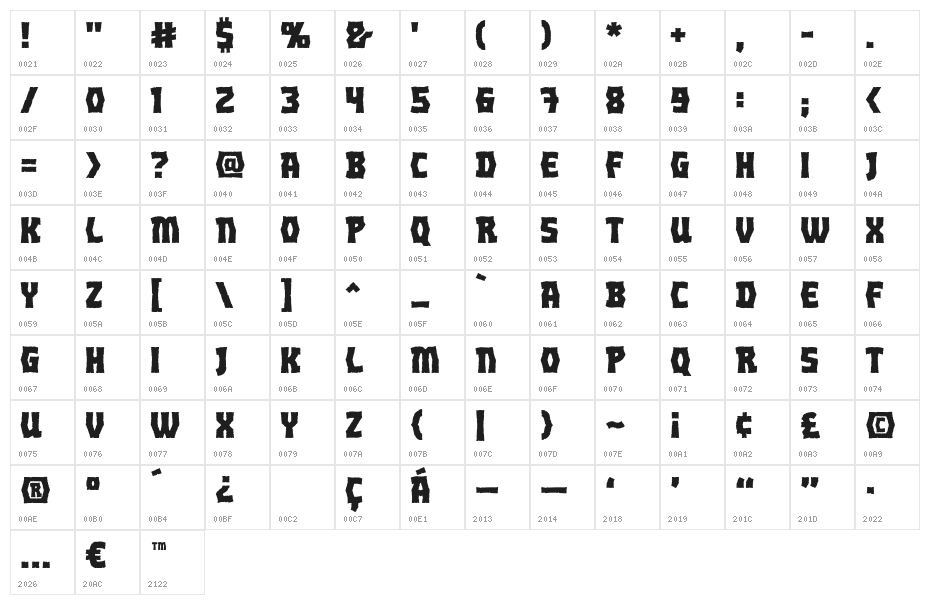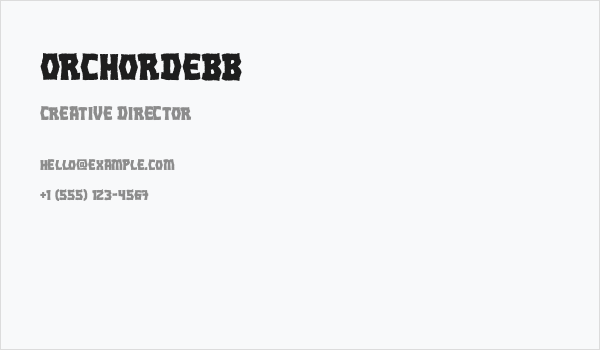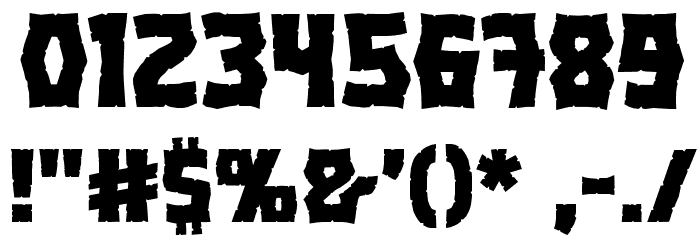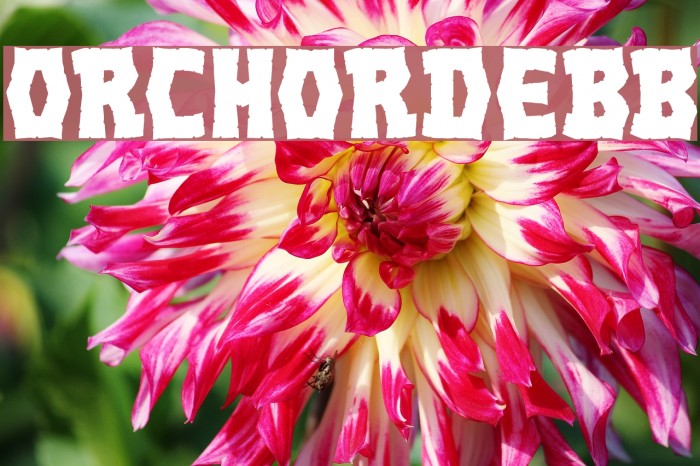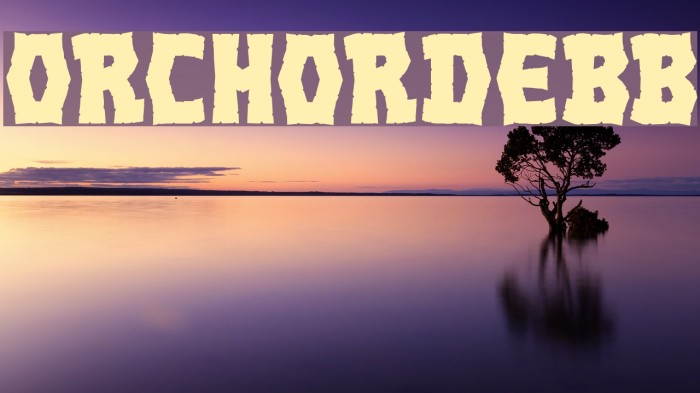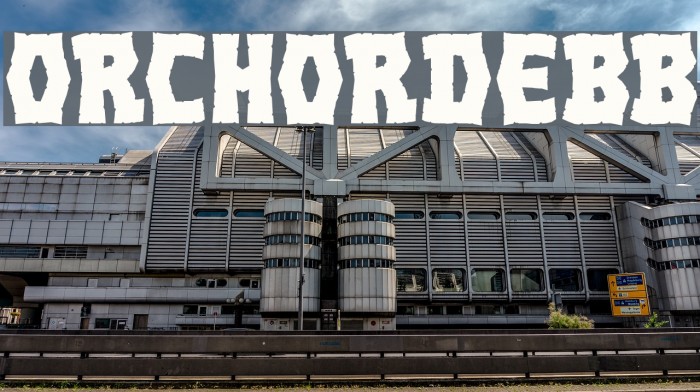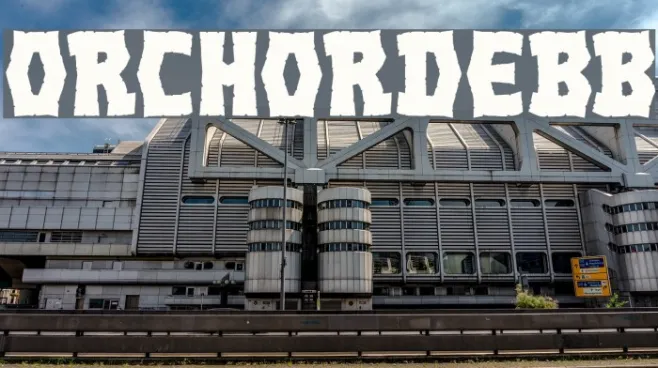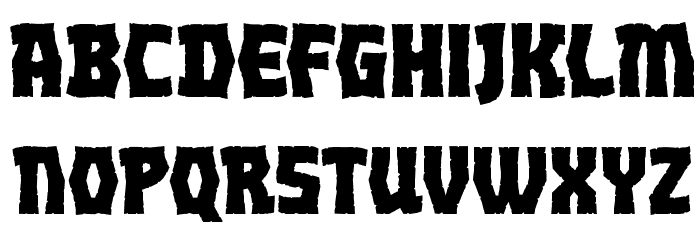
OrcHordeBB Font
OrcHordeBB Description
This font features a rugged, bold design with a distinctly jagged and irregular appearance, reminiscent of hand-carved or rough-hewn lettering. The characters have a strong, impactful presence, with thick strokes and uneven edges that convey a sense of raw energy and primal strength. The uppercase and lowercase letters maintain a consistent style, with exaggerated serifs and angular forms that add to the font's unique character. Numbers and special characters follow the same aesthetic, ensuring a cohesive look across all text elements. This font is ideal for projects that require a bold, attention-grabbing typeface with a touch of wildness and unpredictability.
| Proposed Projects | Perfect for fantasy-themed designs, game titles, posters, and branding that requires a strong, primal aesthetic. |